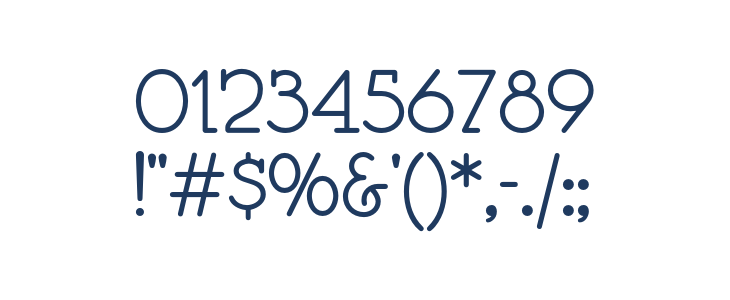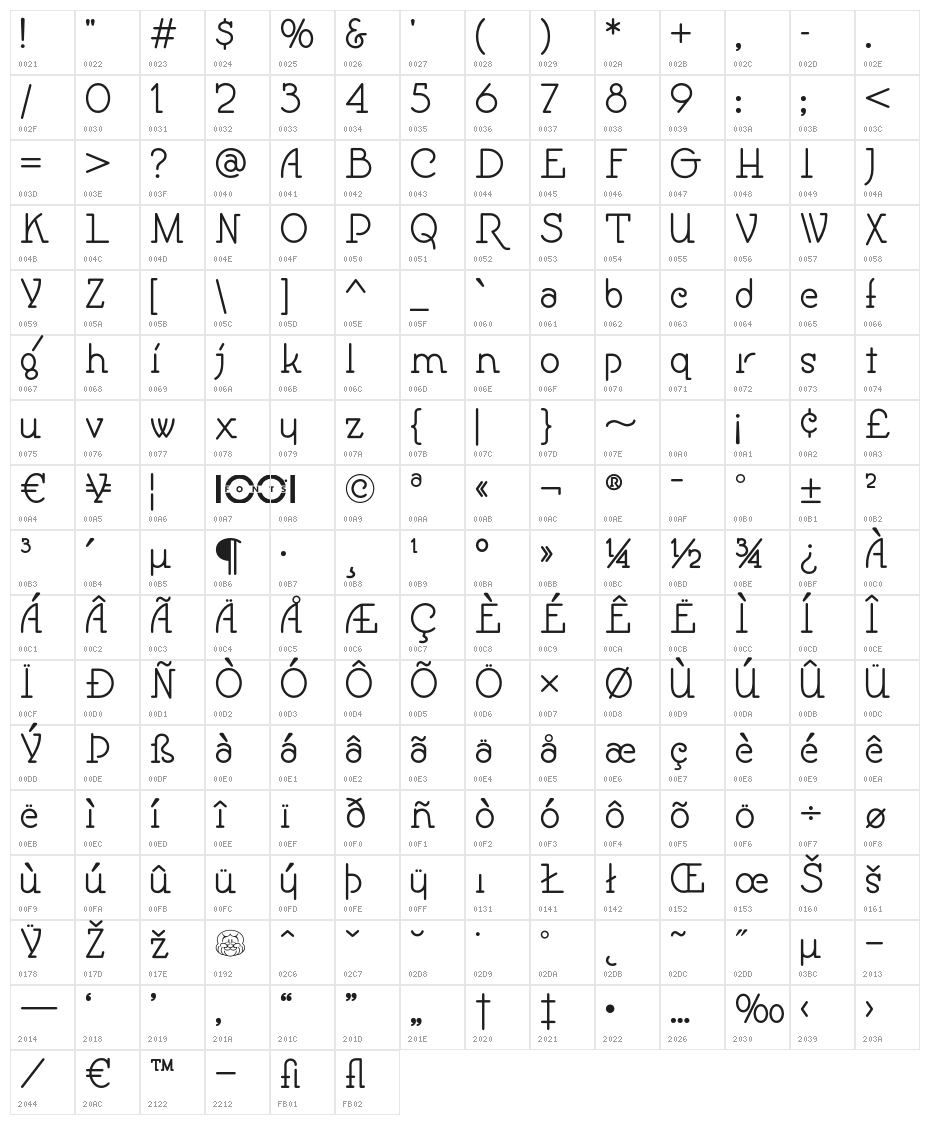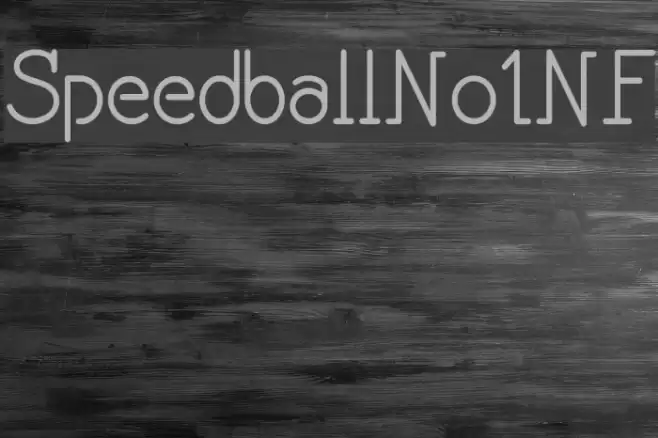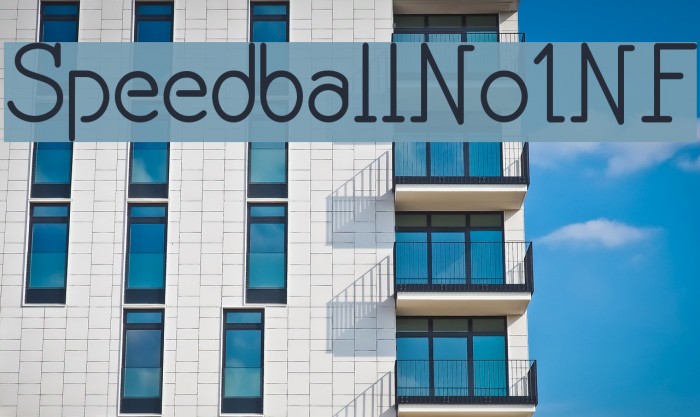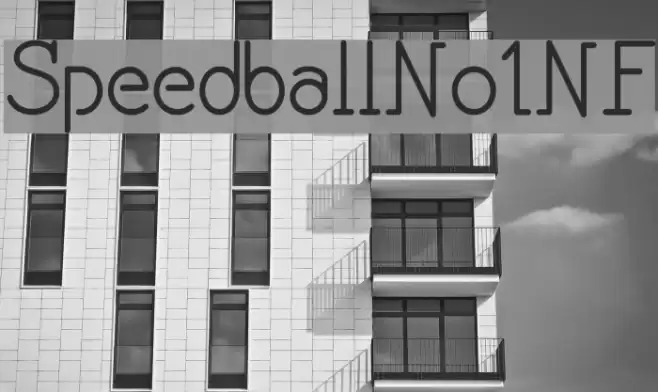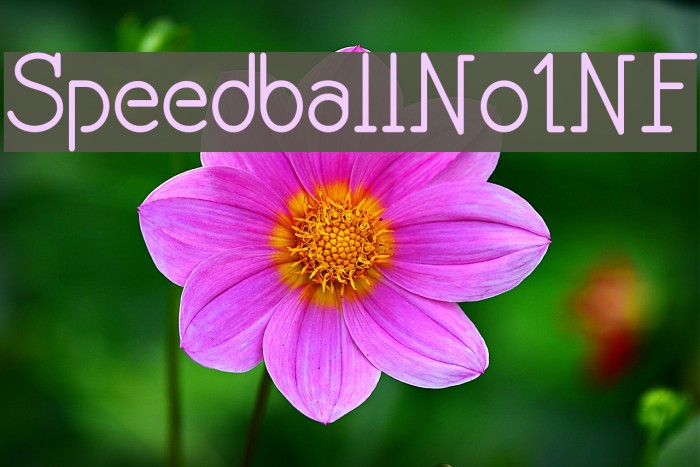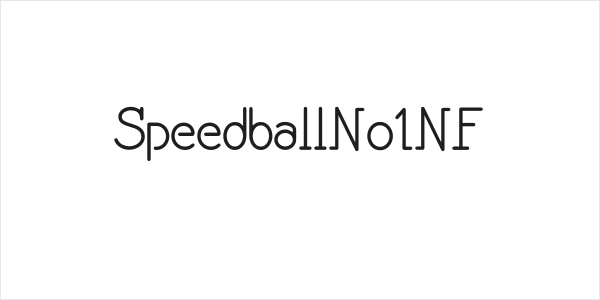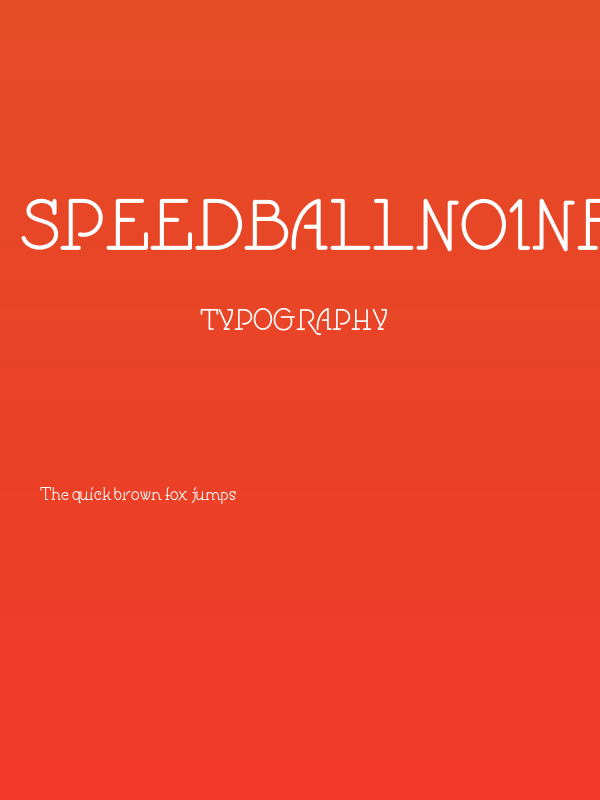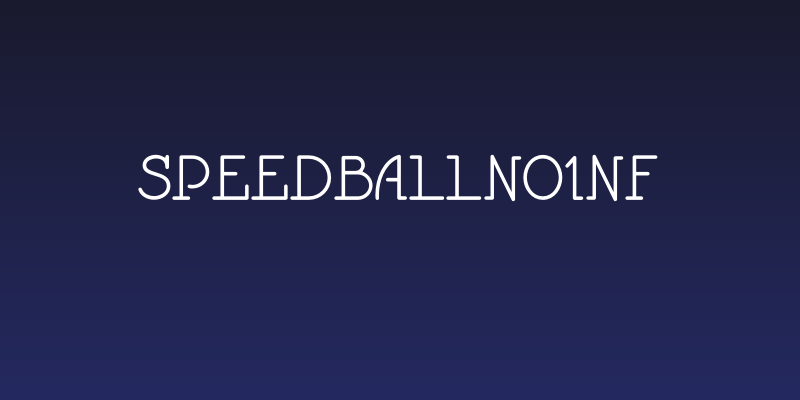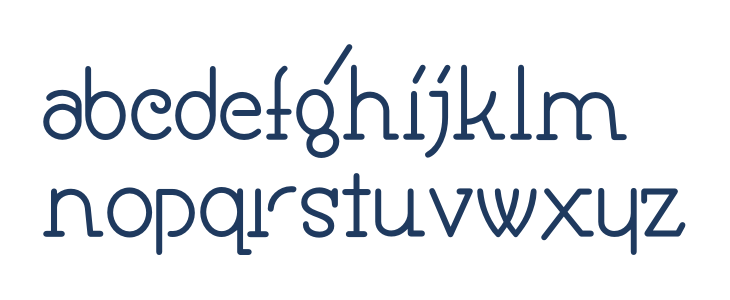
SpeedballNo1NF Font
SpeedballNo1NF Description
This font features a unique blend of geometric and playful elements, characterized by its rounded and slightly whimsical letterforms. The uppercase letters exhibit a consistent height with subtle curves, while the lowercase letters maintain a friendly and approachable style. Numbers are clear and legible, matching the overall aesthetic. Special characters are well-integrated, adding to the font's versatility. The design is clean and modern, yet retains a touch of vintage charm, making it suitable for a variety of creative applications.